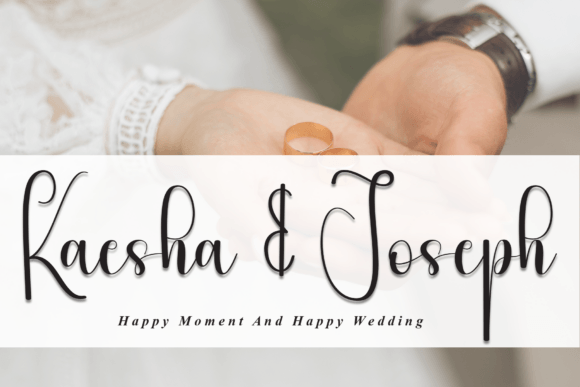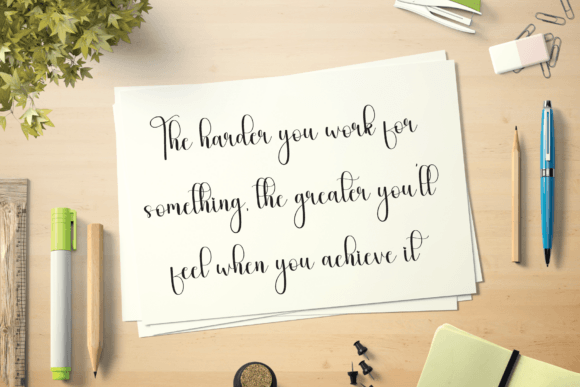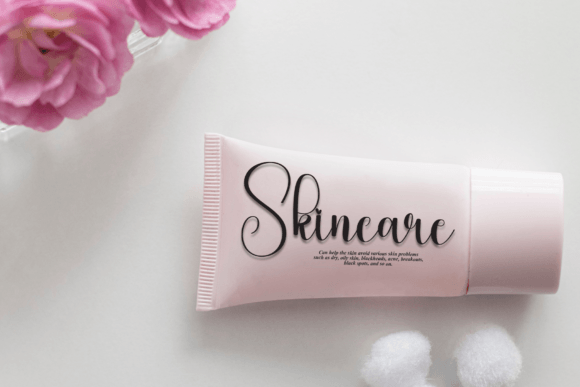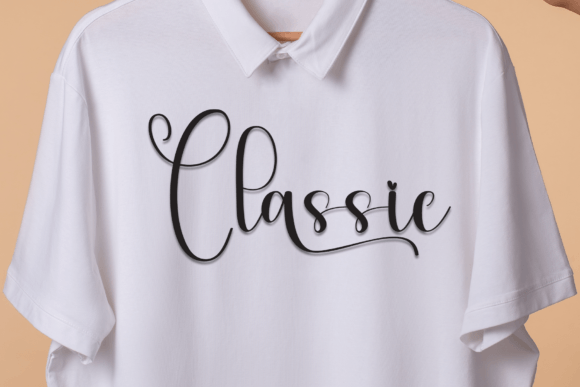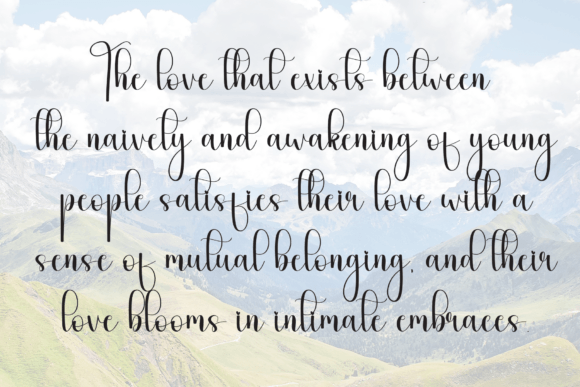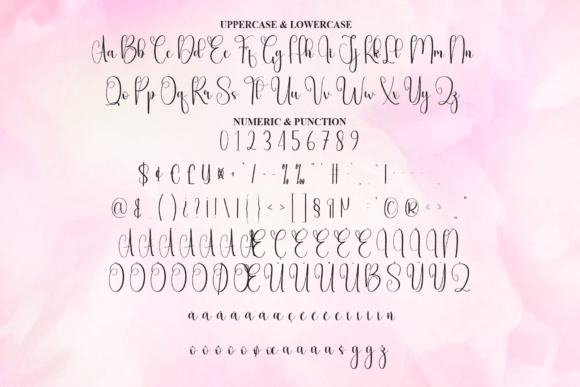
The Magical World of Barbie Font: A Designer’s Delight
A Font that Embodies Joy and Versatility
The Barbie Font is an adorable and warm handwritten display font that exudes a charming and playful personality. Its unique character makes it perfect for adding a touch of whimsy to your wedding invitations, cards, or any creative project that calls for a dash of fun. This font embodies a friendly appeal that’s designed to captivate and charm your audience, emanating a sense of joy in every curve and line.
An Honest Review: The Good and the Quirks
- ✨ Delightful and unique character: The Barbie Font has a one-of-a-kind personality that sets it apart from other fonts.
- ✅ Versatile: This font can be used for a wide range of projects, from wedding invitations to social media graphics.
- 💕 Emotional connection: The font’s playful and charming nature helps create an emotional connection with your audience.
While the Barbie Font is an excellent choice for many projects, there are a few things to keep in mind:
- 🤔 Limited use in formal contexts: Due to its playful nature, this font might not be the best choice for formal or corporate projects.
- ⚠️ Legibility at small sizes: As with many script fonts, the Barbie Font may become less legible at very small sizes.
The Barbie Font was inspired by the classic, hand-drawn fonts of the 1950s and 60s. The designer aimed to create a font that embodied the playfulness and charm of a bygone era, while still being modern and versatile. The result is a font that’s both nostalgic and fresh, perfect for designers looking to add a touch of whimsy to their projects.